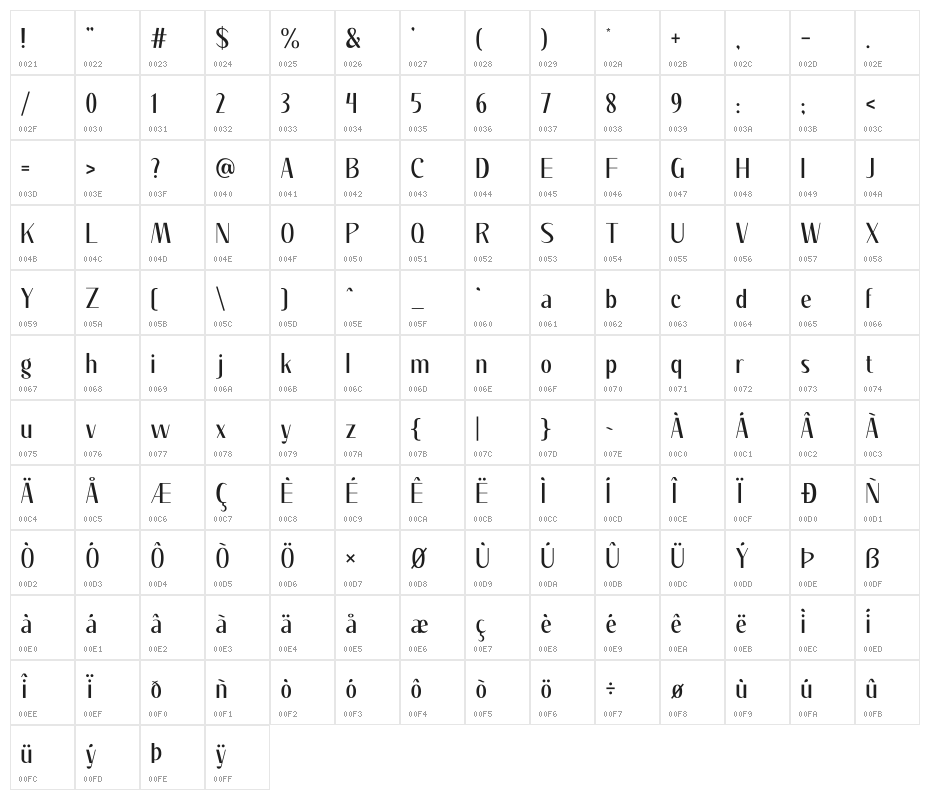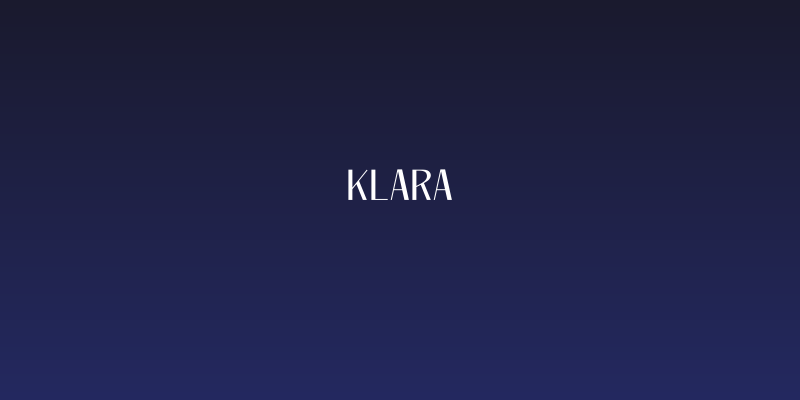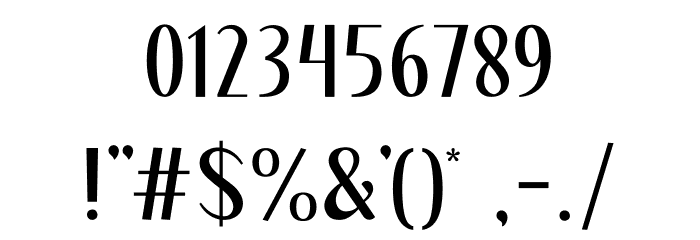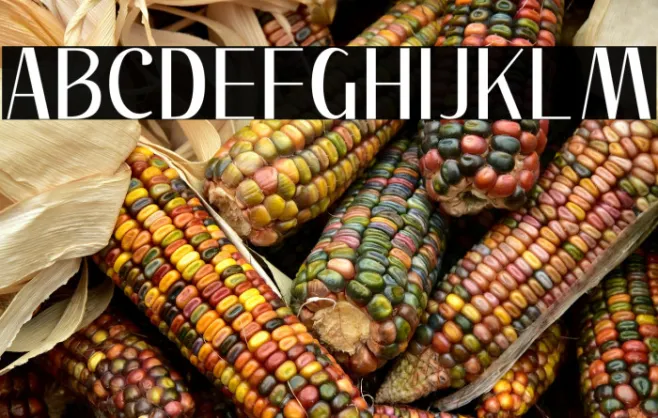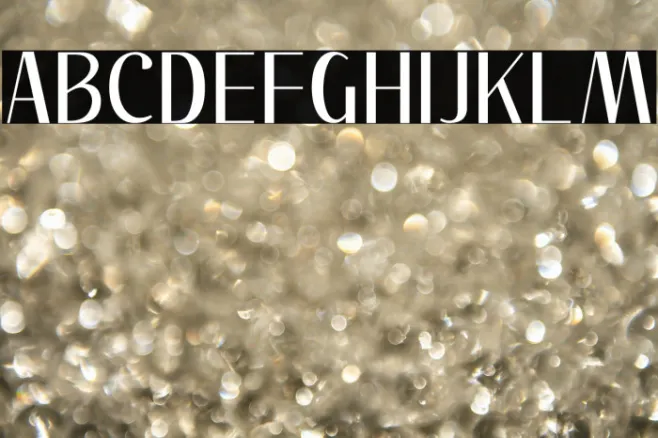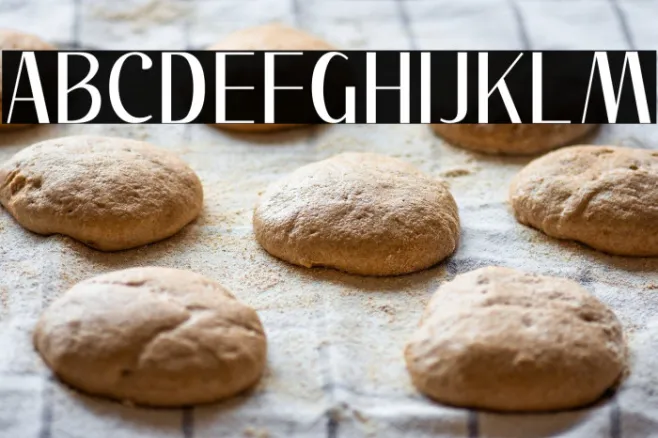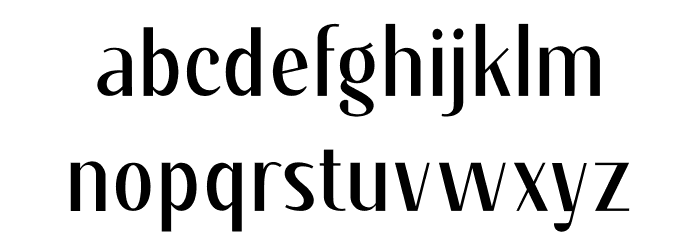
Klara Font
Klara Description
This font features a modern and elegant design with a high contrast between thick and thin strokes. The uppercase letters are tall and slightly condensed, giving a sophisticated appearance. The lowercase letters maintain a consistent style, with smooth curves and sharp angles that add a touch of refinement. The numerals are distinct and clear, making them easily readable. Special characters are well-integrated, maintaining the overall aesthetic of the font. This typeface is versatile, suitable for various design needs, from branding to editorial use.
| Use Case | Headlines, Logos, Editorial design |
| Proposed Projects | Ideal for branding, editorial design, packaging, and advertising projects. |